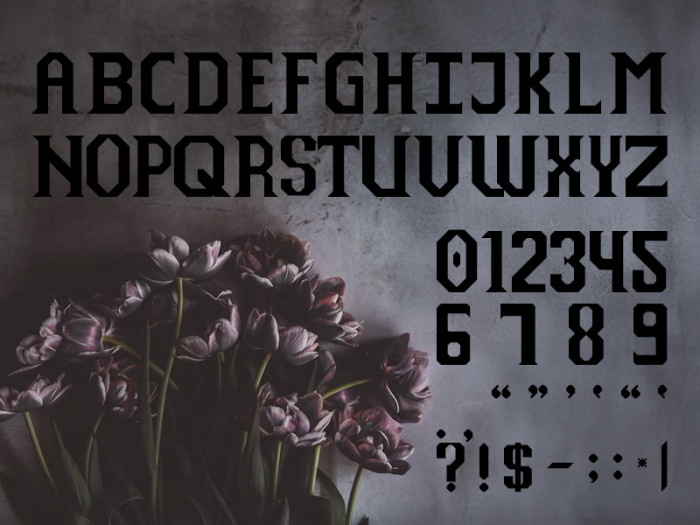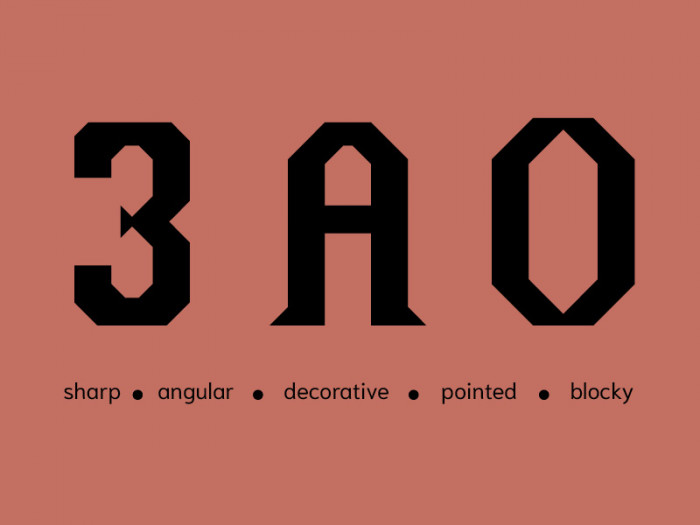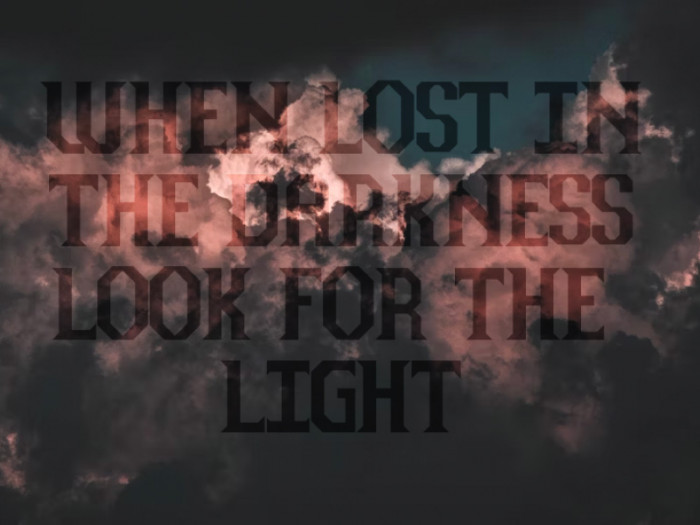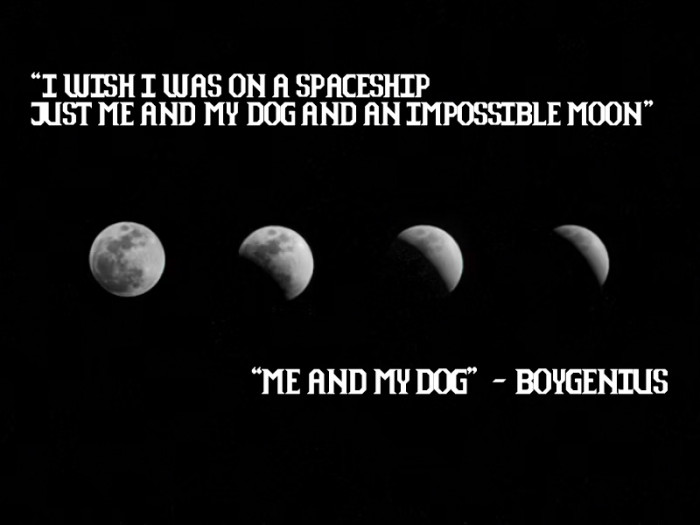
• This font has a bold, geometric, and blocky design, giving it a strong and industrial appearance. The characters are constructed from thick, straight lines with sharp angles, contributing to a mechanical, rugged, or fantasy aesthetic. The letters are monospaced, meaning each character occupies the same width, which enhances the structured and rigid visual style.